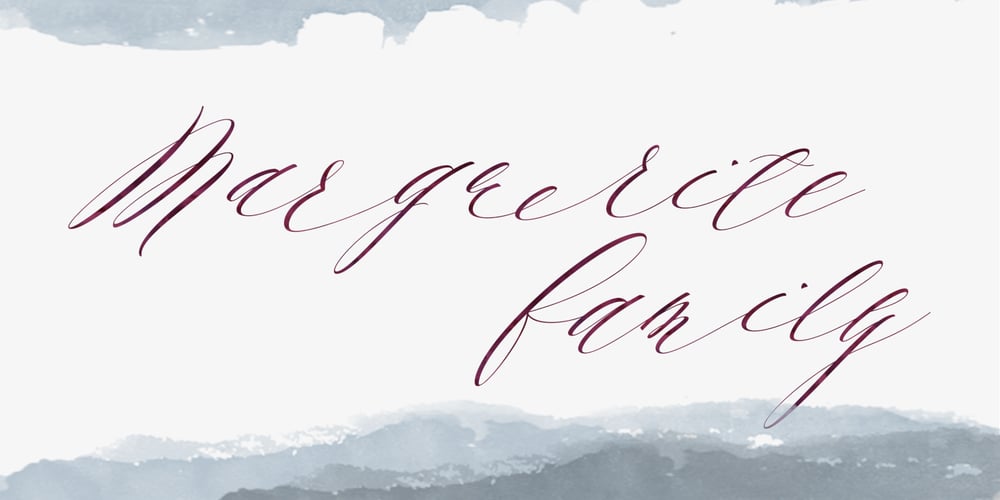
Marguerite Font Family was designed by Dathan Boardman, Alissa Mazzenga and published by Great Lakes Lettering. Marguerite contains 3 styles and family package options. Designed by fine artist and calligrapher Alissa Mazzenga, Marguerite is is a calligraphy style font inspired by fine artistry and risk taking. She has a way of surprising her viewer, with a look that is authentic, yet chic, relaxed, but also elegant. Marguerite’s trademarks are strong angles, bold uppercase forms, elegant hairlines and perfectly placed swashes. She comes along with many ligature variations and a contextual alternates features.